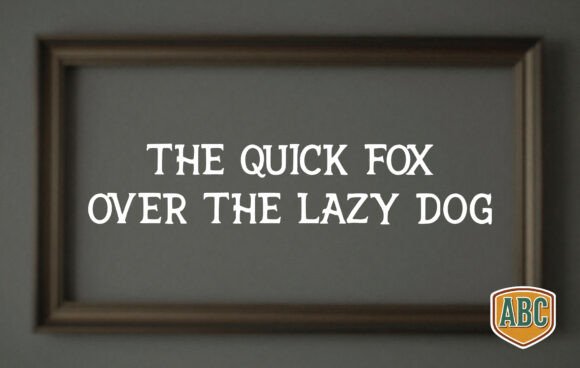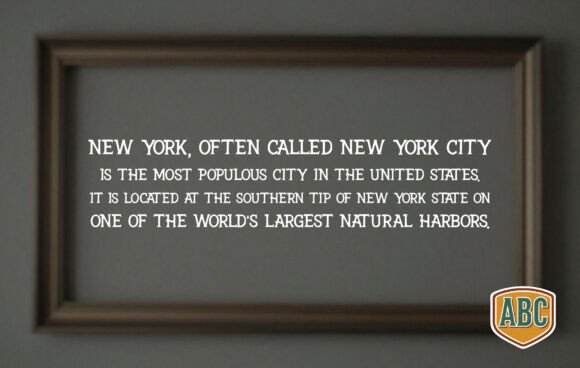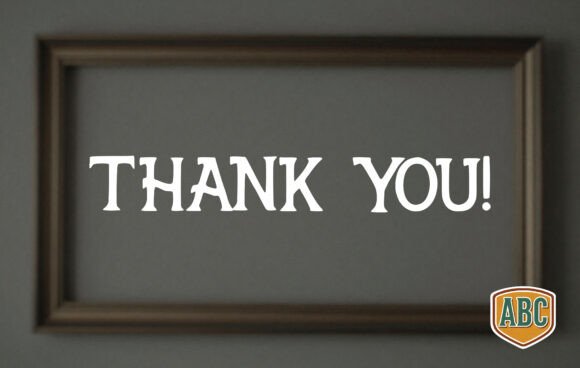
Discover the Elegance of Darkgray Font: A Perfect Blend of Tradition and Personality
In the world of typography, finding the right font can make all the difference in conveying your message effectively. For designers and crafters looking for a typeface that balances traditional structure with a casual, personal feel, the Darkgray font is an excellent choice. This sturdy, serif-inspired handwritten typeface is perfect for editorial layouts, photo captions, and sophisticated brand storytelling.
The Unique Characteristics of Darkgray Font
The Darkgray font boasts subtly flared ends of the strokes, giving it a classic look that’s reminiscent of traditional serif fonts. However, its hand-drawn execution keeps it from feeling too formal, making it an ideal choice for lifestyle magazines or high-end product catalogs where you want to maintain a “curated” but “personal” atmosphere.
One of the standout features of the Darkgray font is its ability to pair beautifully with elegant serif fonts. This creates a high-contrast, professional look that’s perfect for designers looking to add some visual interest to their text. Whether you’re working on a luxury brand campaign or a high-end fashion magazine, the Darkgray font is sure to impress.
Why Choose Darkgray Font?
So, why should you choose the Darkgray font for your next design project? Here are just a few reasons:
- Versatility: The Darkgray font is highly versatile and can be used in a variety of design applications, from editorial layouts to photo captions and brand storytelling.
- Elegance: The font’s classic look and feel make it perfect for high-end designs where you want to convey a sense of sophistication and luxury.
- Personality: The hand-drawn execution of the Darkgray font gives it a personal touch that’s hard to find in traditional serif fonts.
- Readability: The font’s clear and legible design makes it easy to read, even in smaller sizes.
How to Use Darkgray Font Effectively
To get the most out of the Darkgray font, here are a few tips on how to use it effectively:
- Pair it with elegant serif fonts: As mentioned earlier, the Darkgray font pairs beautifully with elegant serif fonts. Try pairing it with fonts like Georgia or Times New Roman for a high-contrast, professional look.
- Use it in frames or borders: To create a polished, gallery-like presentation for your text, try using the Darkgray font in frames or borders. This adds a touch of sophistication and elegance to your design.
- Experiment with different sizes: The Darkgray font is highly legible, even in smaller sizes. Experiment with different sizes to find the perfect fit for your design.
In conclusion, the Darkgray font is a versatile and elegant typeface that’s perfect for designers and crafters looking for a traditional yet personal feel. Its unique characteristics, versatility, and readability make it an excellent choice for a wide range of design applications. Whether you’re working on a luxury brand campaign or a high-end fashion magazine, the Darkgray font is sure to impress.